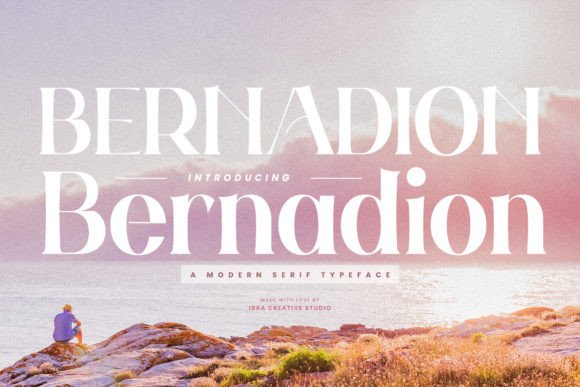
I still remember the frustration of working on a project, hours spent perfecting every detail, only to be held back by one thing: the font. It was a client request for a luxury brand, and I needed something that exuded sophistication and modernity. I scoured the internet, tried countless fonts, but none seemed to fit the bill. That was until I stumbled upon Bernadion, a modern serif typeface that changed the game.
First Impressions: A Love Affair with Bernadion
Bernadion is more than just a font; it’s a statement piece. With its refined letterforms and subtle geometric influences, it captures attention with a crisp and professional demeanor. Here are a few things I love about Bernadion:
• ✨ Timeless Elegance: Bernadion seamlessly merges sophistication with contemporary design elements, creating a harmonious balance of classic and modern aesthetics.
• ✅ Versatility: The font’s balanced proportions and meticulous detailing ensure clarity and readability across various platforms, making it perfect for both print and digital applications.
• 💡 Attention to Detail: Bernadion’s subtle geometric influences add a touch of modernity, making it stand out from more traditional serif fonts.
The Not-So-Perfect Font
While Bernadion is an excellent choice, it’s not without its quirks. Here are a few things to consider:
• 🤔 Limited Character Set: Bernadion’s character set, although extensive, might not include certain special characters or glyphs required for specific projects.
• ⚠️ Font Size Limitations: While Bernadion looks great at larger font sizes, it may not be as effective at very small sizes, where some details might get lost.
The Story Behind Bernadion
Bernadion was designed with the goal of creating a modern serif font that blends traditional elegance with contemporary flair. Inspired by classic typography and geometric shapes, Bernadion’s creator aimed to craft a font that would excel in both print and digital media.
What makes Bernadion unique? Bernadion’s unique blend of classic serif elements and modern geometric influences sets it apart from other fonts.
Is Bernadion suitable for body text? Yes, Bernadion’s clear and readable design makes it suitable for body text, especially in digital applications.
Does Bernadion support OpenType features? Yes, Bernadion supports OpenType features, including stylistic alternates and glyphs, allowing for greater creative flexibility.